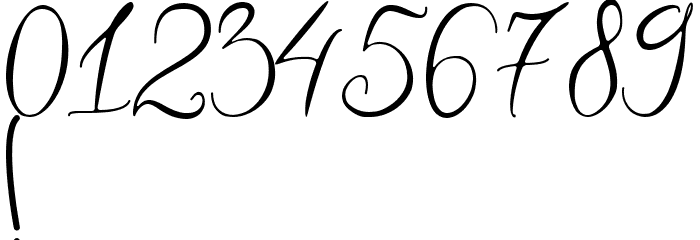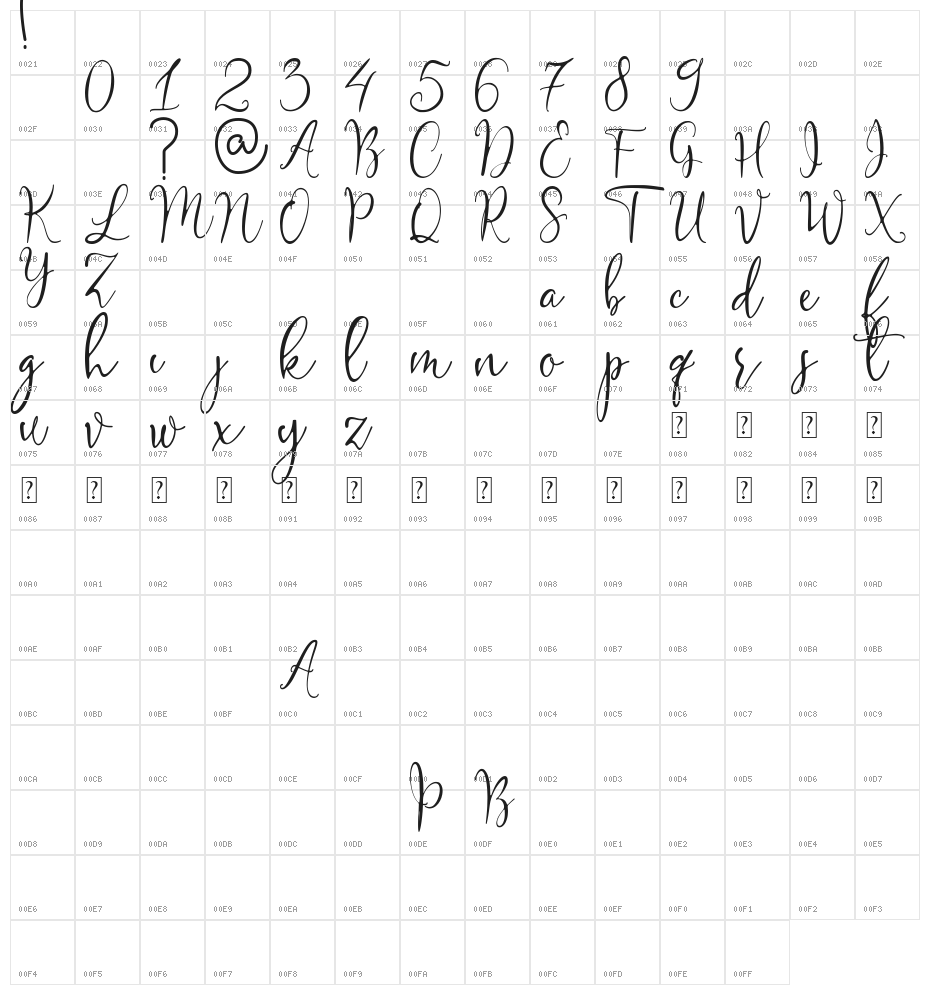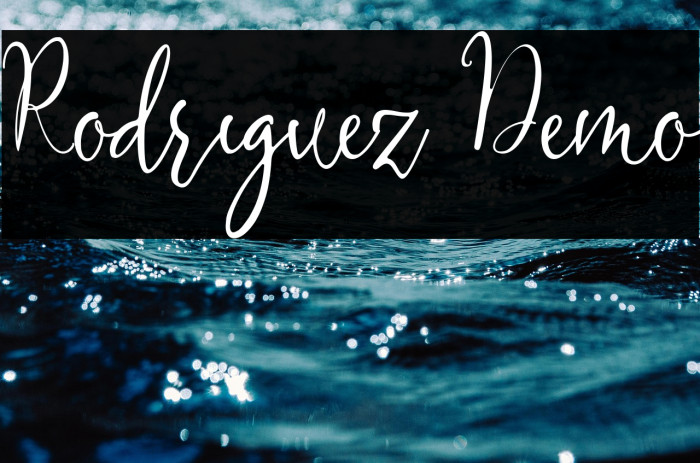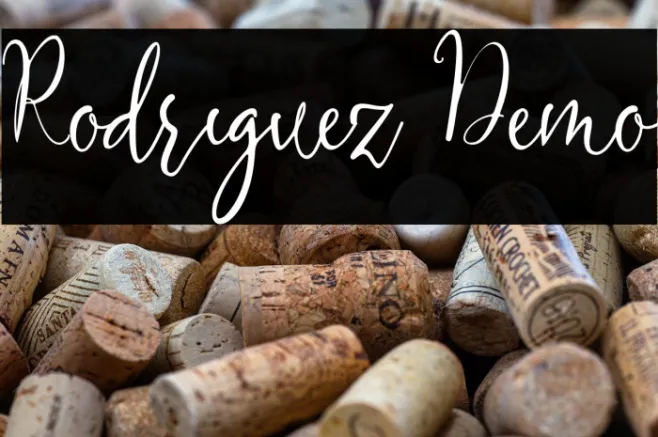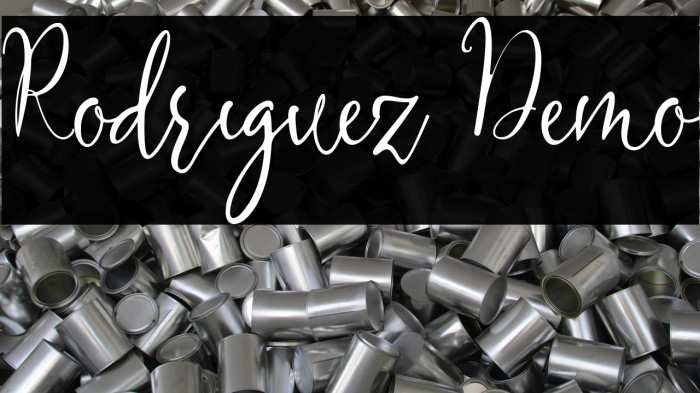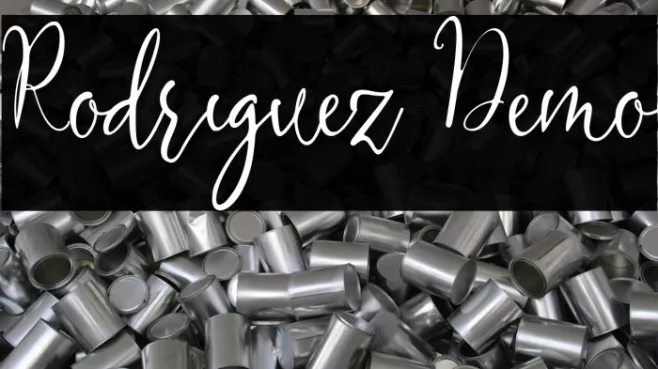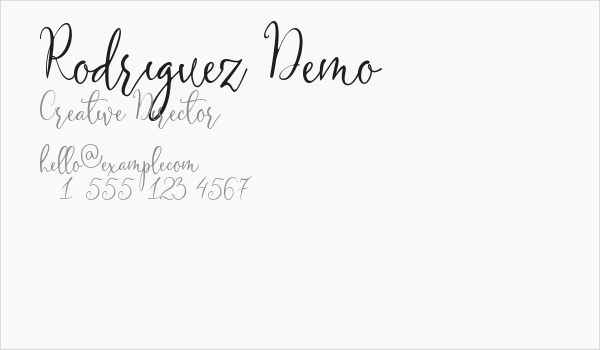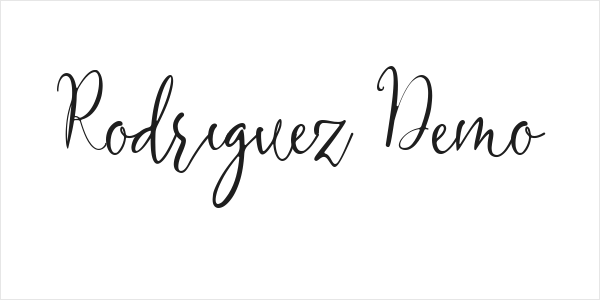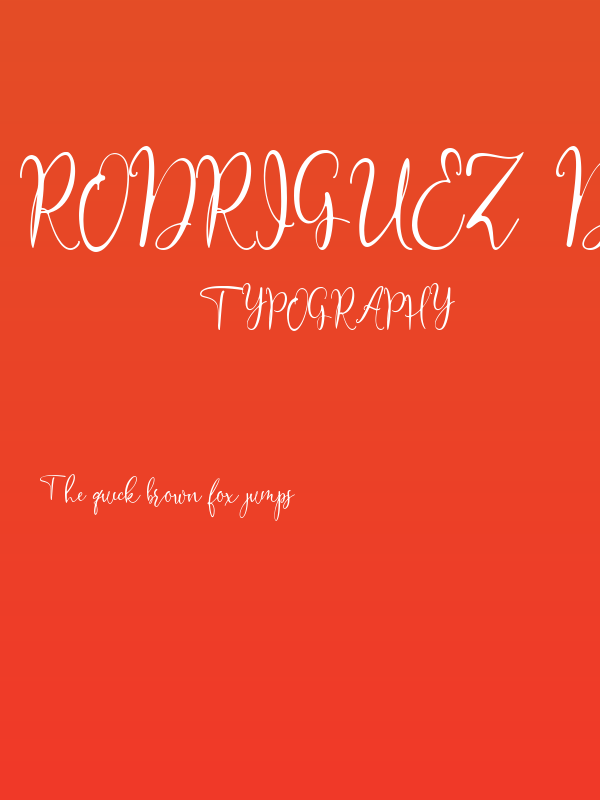
Rodriguez Demo Font
Rodriguez Demo Description
This elegant script font features a flowing, cursive style with smooth, connected strokes. The uppercase letters are tall and graceful, with sweeping curves and loops that add a sense of movement and fluidity. The lowercase letters maintain the same fluidity, with a slightly more compact form that enhances readability. The numbers and special characters are designed to match the overall aesthetic, with a consistent stroke width that ties the entire set together. This font exudes a sense of sophistication and charm, making it ideal for projects that require a touch of elegance.
| Overall Style | Elegant, Sophisticated |
| Proposed Projects | Ideal for wedding invitations, elegant branding, greeting cards, and high-end product packaging. |